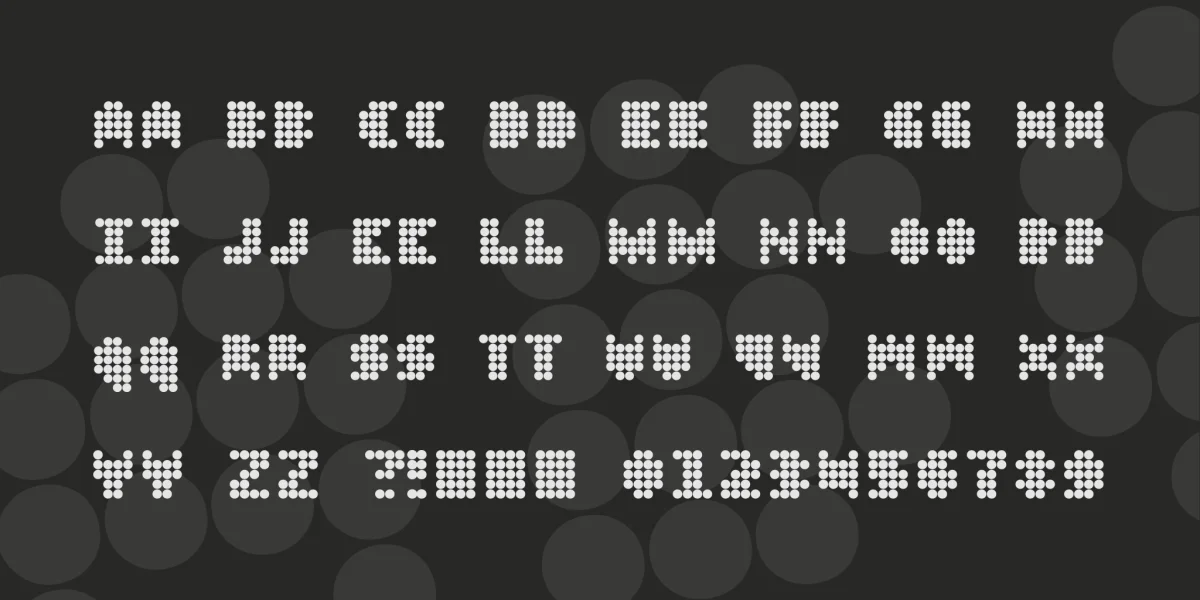
Named after that ugly salmonella bacteria you don't want in your food! The font is one of those simple dot fonts, and it comes in a regular and outbreak version ...